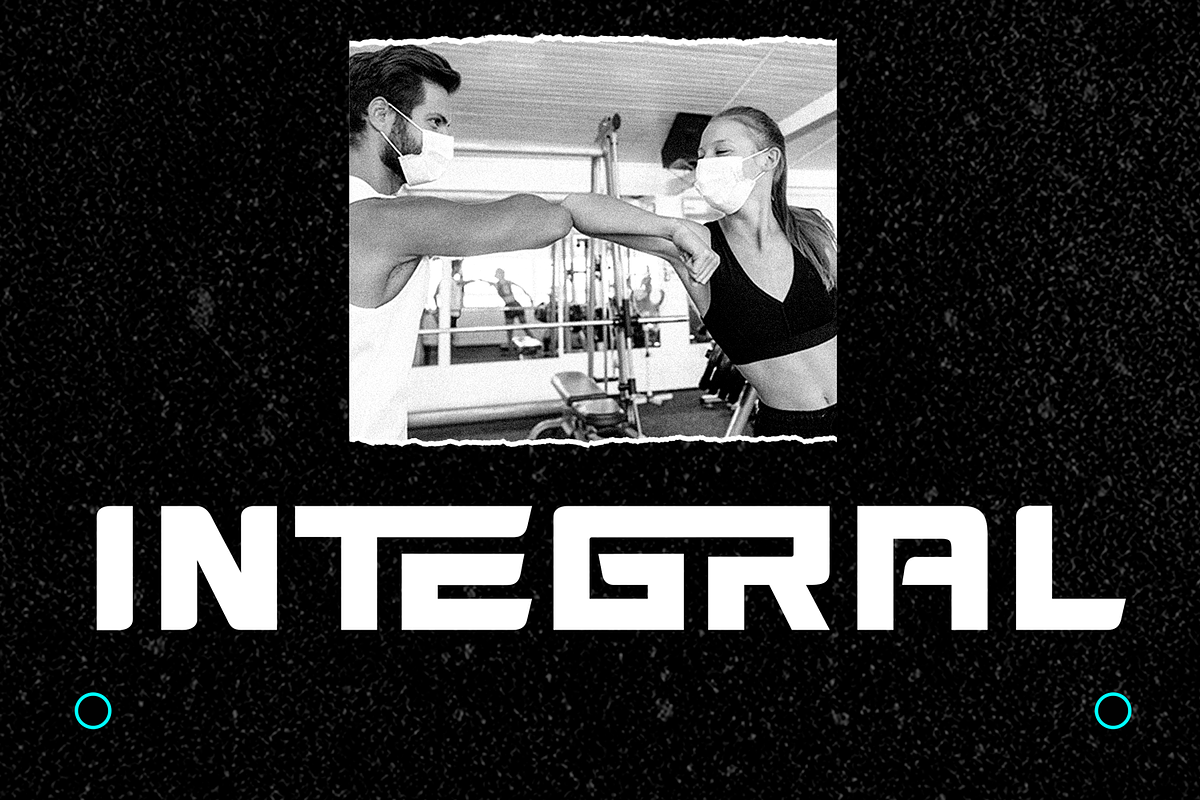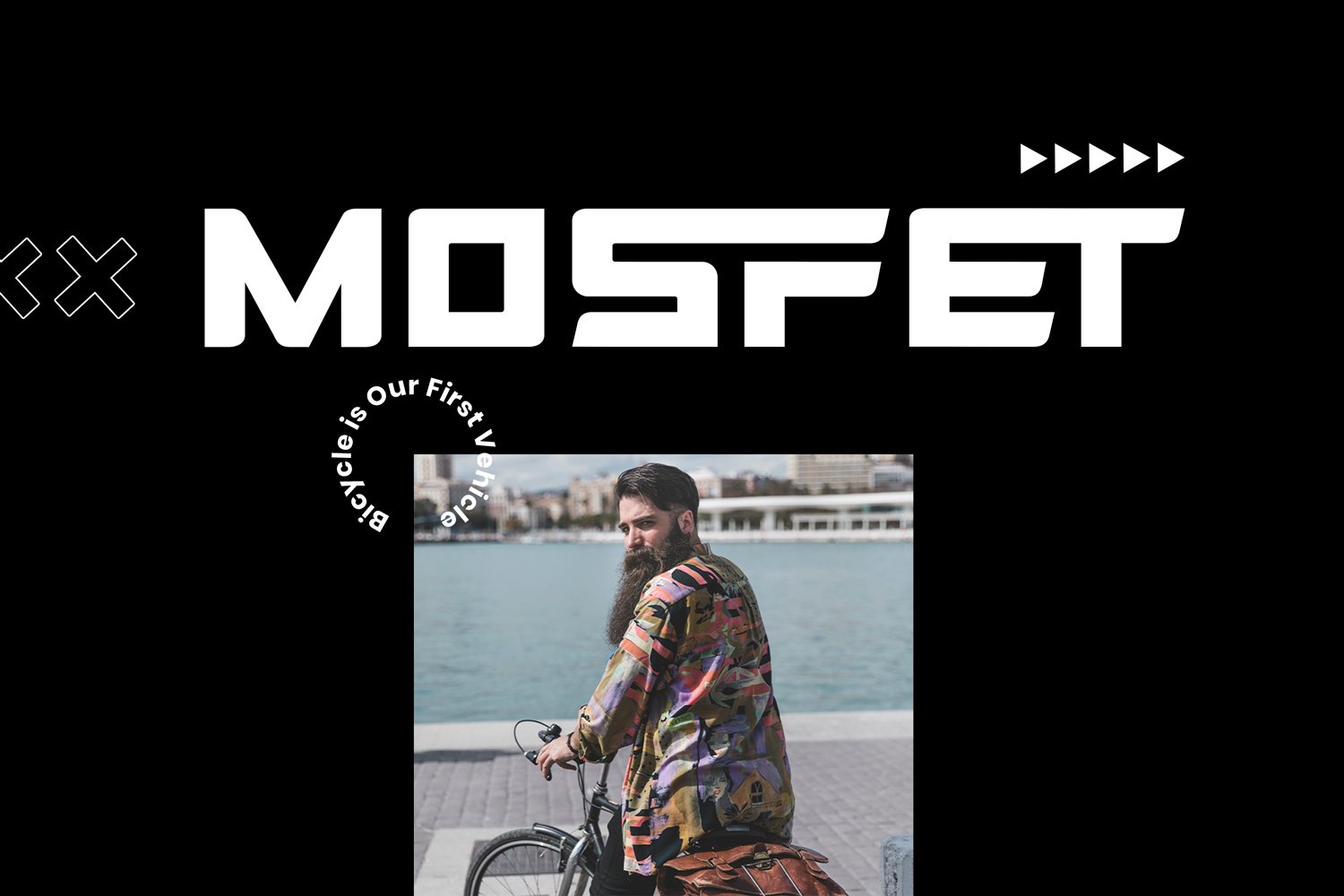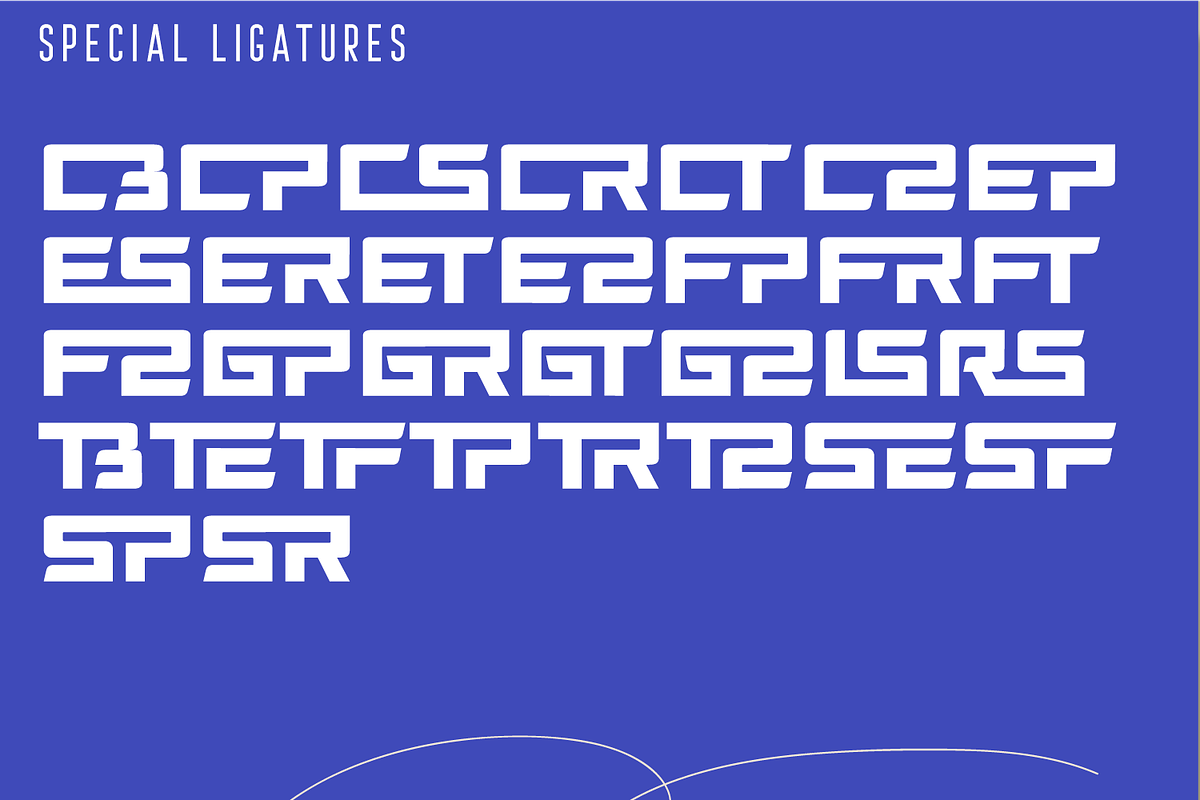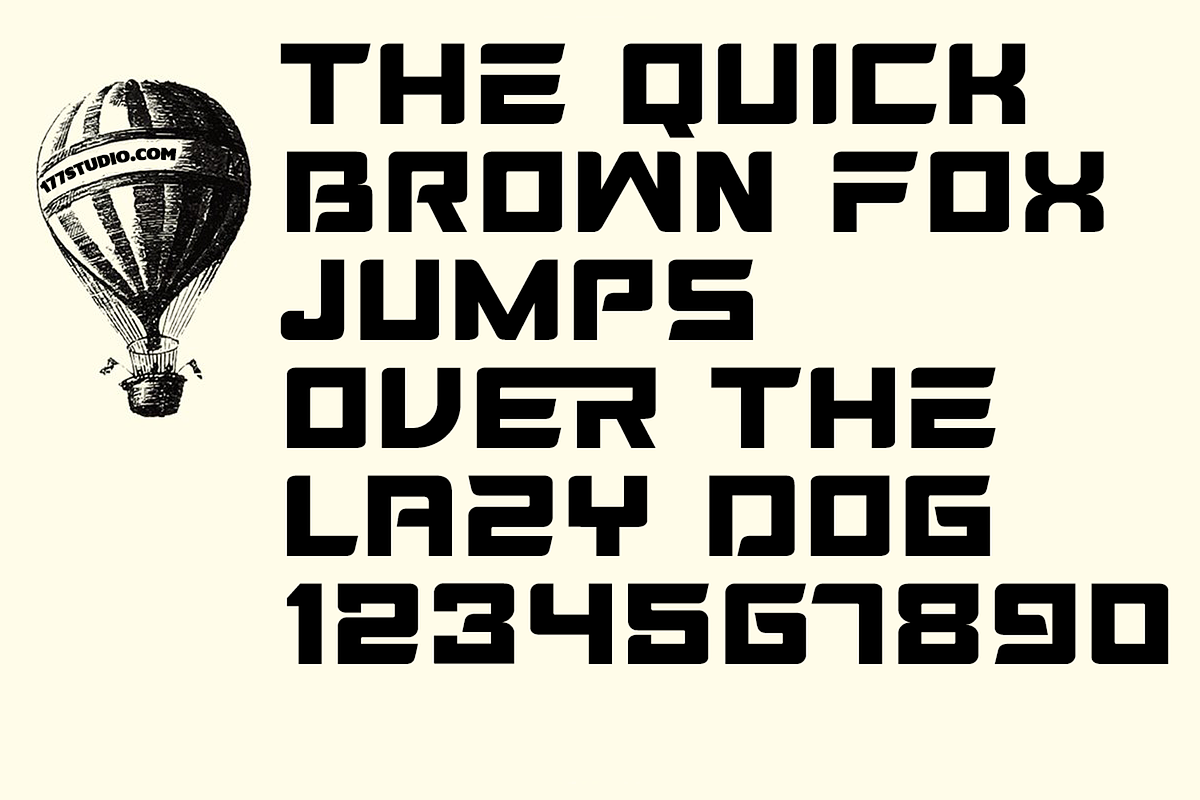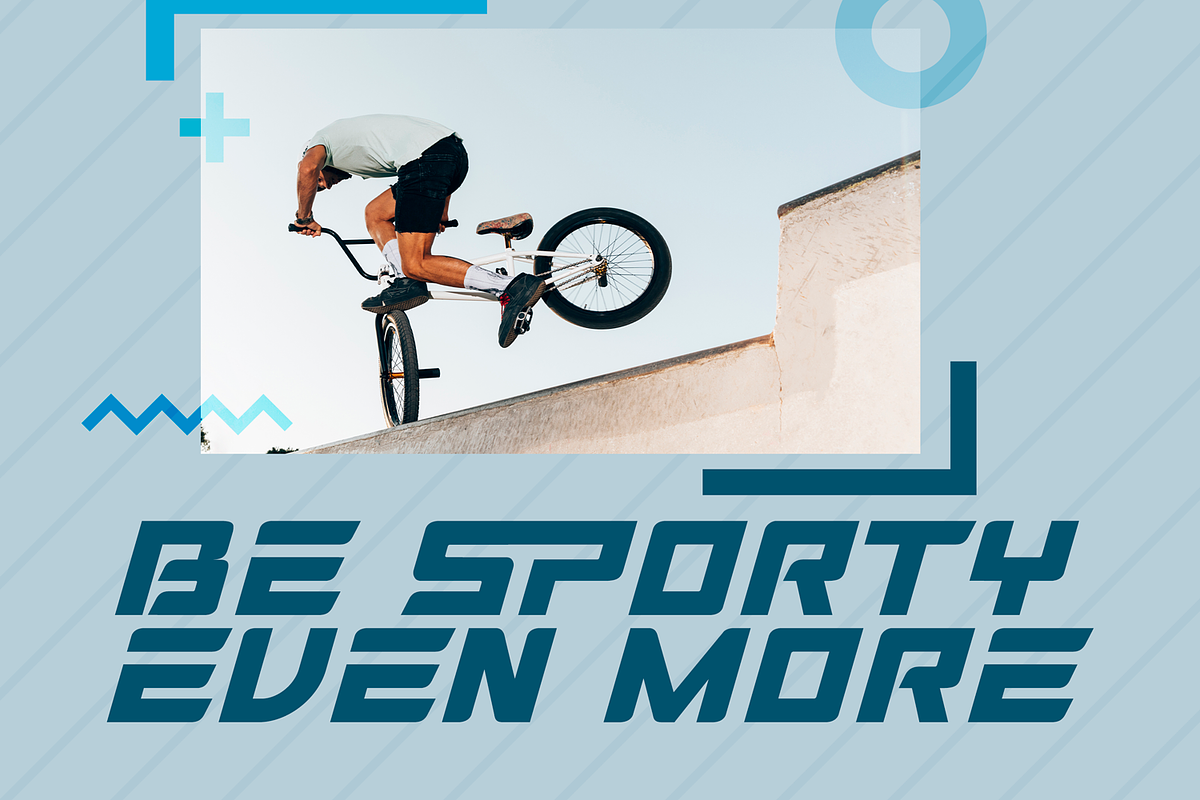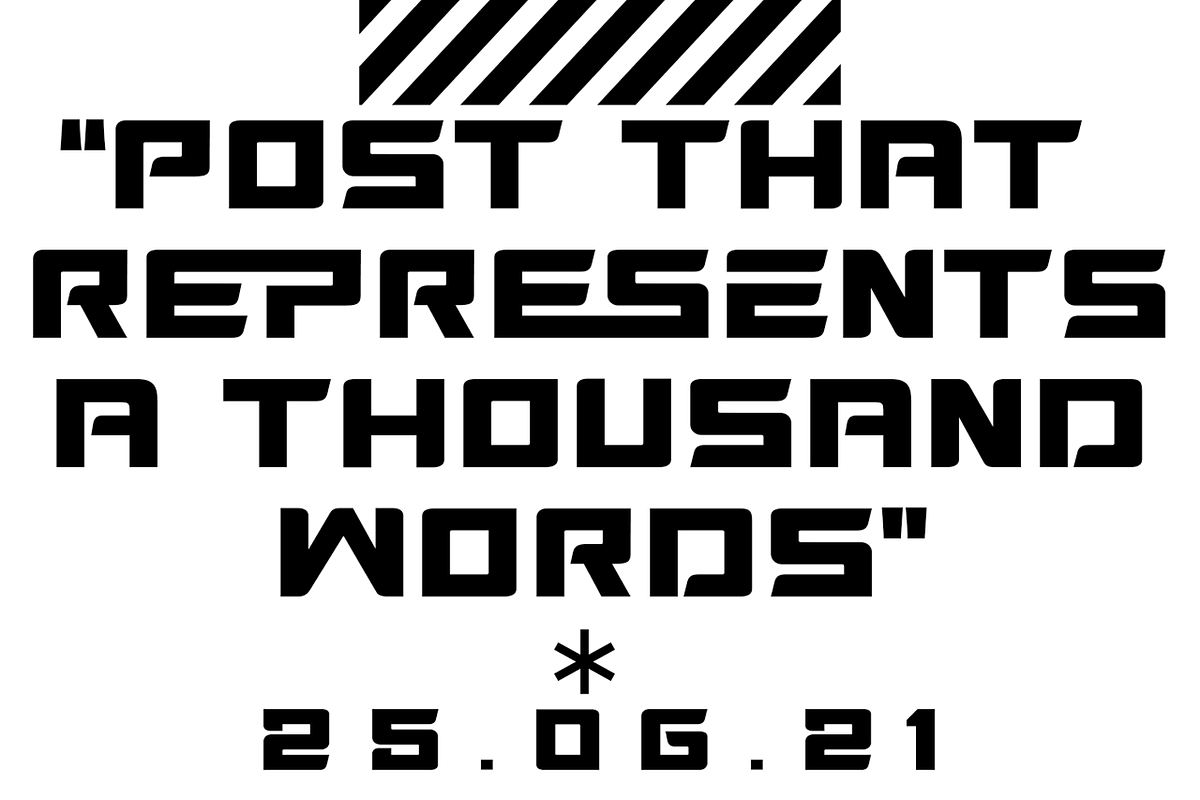
MOSFET Font
MOSFET Font is a modern geometric sans serif. It fits every graphic design or typography-related project. The slightly rounded corners of the letters give an elegant line to your text and quotes. A font with a minimal atmosphere that will give a cool style and weight to all your artistic compositions.
To make it look more unique, here we prepared some ligatures:
CB CP CS CR CT CZ EP ES ER ET EZ FP FR FT FZ GP GR GT GZ LS RS TB TE TF TP TR TZ SE SF SP SR
MOSFET is also included full set of:
- Special Ligatures